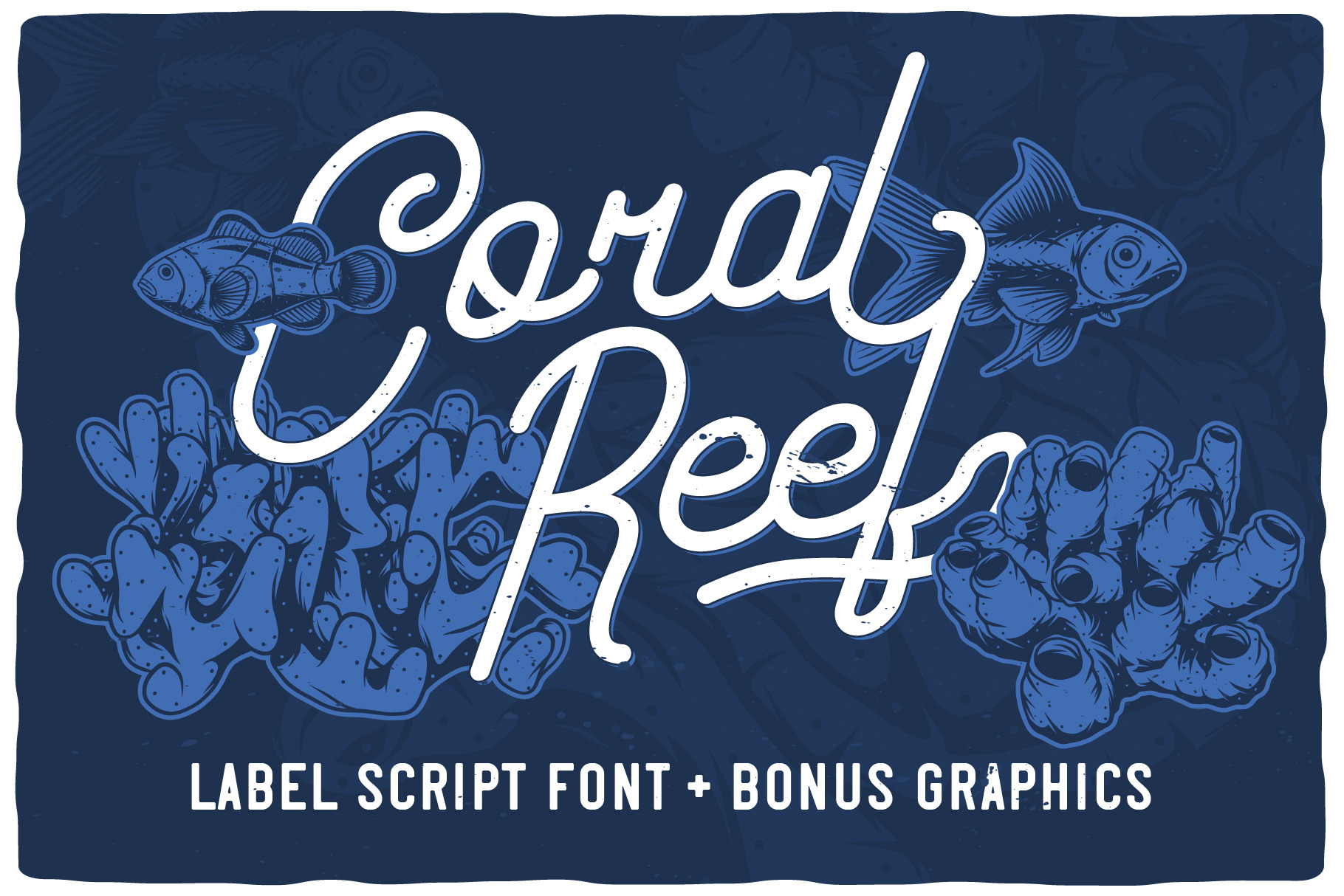
Coral Reef script font
Introducing a clean script font named Coral Reef. This smooth font is perfect for lettering with alternates for small letters (for last letter for example) and multilingual support. This set contains also eight Coral Reef themed illustrations of small fishes, octopus, corals, crab and shark.
How to use swashes
- Just type at the end of your text Swash2 (or Swash3, Swash4, Swash5... depending on the number of letters you want to underline) and turn ON 'Standard Ligatures' on OpenType tab in Illustrator. In Photoshop Standard Ligatures you will find in the menu Type-OpenType